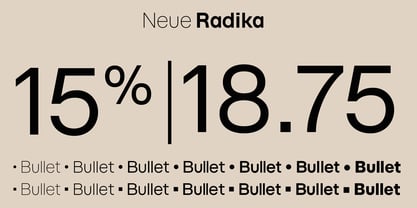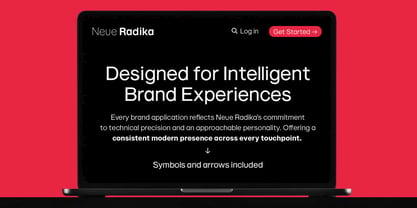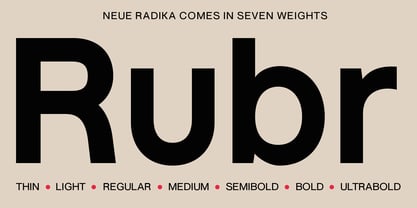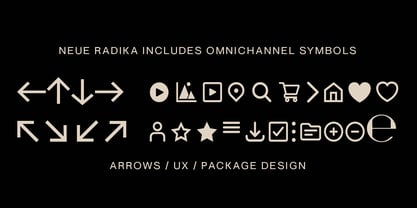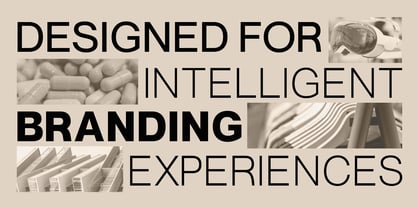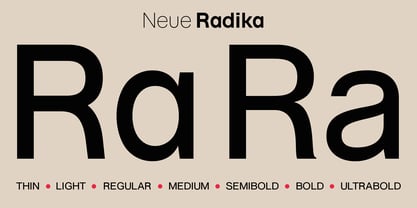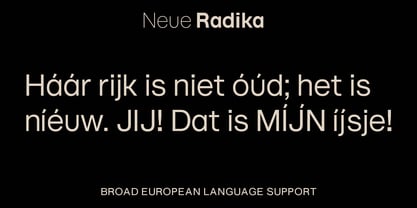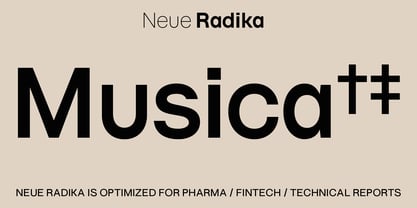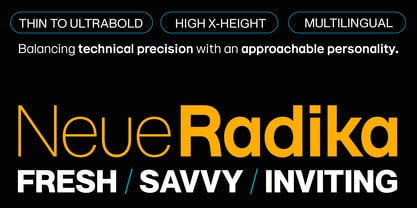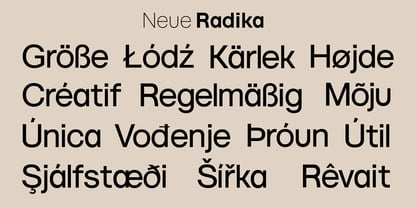
Neue Radika
by Matt Chansky
The Neue Radika Font Family was designed by Matt Chansky and published by Matt Chansky. Neue Radika contains 14 styles and family package options. More about this family
Neue Radika is crafted for modern interfaces and brand experiences, balancing technical precision with an approachable personality. Its optimized x-height, open proportions, and carefully balanced rhythm deliver outstanding readability across websites, apps, presentations, and corporate communications. Even at smaller sizes, it remains approachable without sacrificing clarity.
Neue Radika transitions effortlessly between digital and print. Seven weights—from Thin through UltraBold—provide the flexibility to build cohesive typographic systems while maintaining a consistent voice across every touchpoint. Carefully refined proportions help dense information remain approachable, making it equally effective for branding systems, editorial design, retail environments, technical reports, pharmaceutical branding, and corporate marketing, where readability directly impacts communication.
Extensive multilingual language support makes Neue Radika ready for global brands and organizations, while its contemporary character brings fresh energy to identity systems, user interfaces, and campaign typography.
Created for today's designers—not yesterday's conventions. Fresh, savvy, and inviting, Neue Radika brings clarity with personality to every project.
Digital-first font foundry, specializing in universal, high x-height fonts with a Swiss flavor. Allowing designers to literally and figuratively level up their creative with finely crafted and versatile font families. Typography is a visual art and when used in branding – it has the ability to speak to and shape an audience. That is the foundry's mission, to empower visual communicators with elite memorable fonts to help distinguish brands. When typography is the language used to craft a brand tone, speak to me in fonts. My love of typography inspired me to begin making fonts, but it’s a passion for visual design that sustains me. As a brand lead, I've received nearly 40 individual awards and accolades since 2009, appearing in several design books and magazines. I've worked with brand name clients across a wide variety of business segments. With two decades of experience on the global advertising scene, I know what is needed from a font or a logotype. Qualities like memorability, readability on small screens, clean lines, and ample glyph options are hallmarks of my font families. Long live design, long live typography.